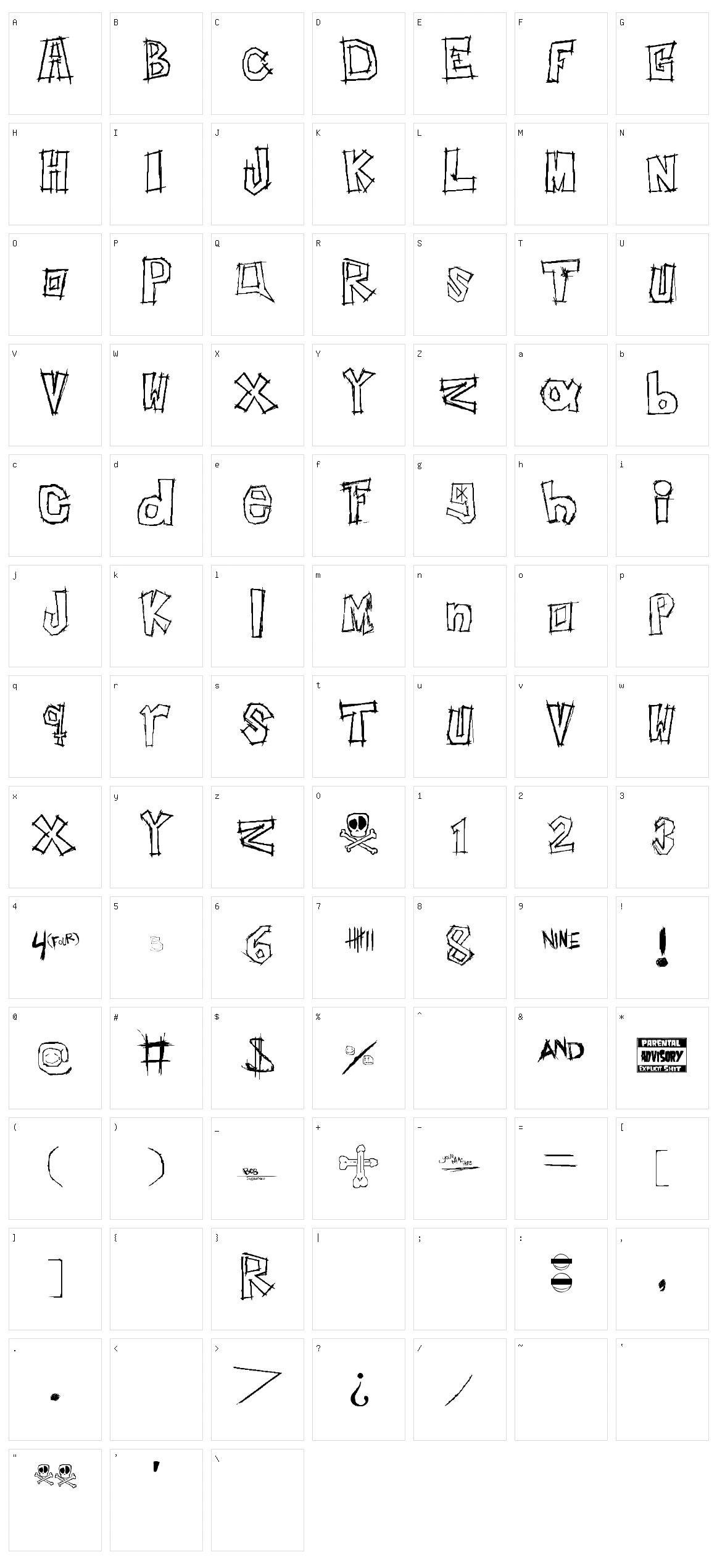
INSERT YOUR NAME HERE (UPDATED VERSION)
I now added better designed skulls and a couple of other things, so hope you'll think it's better than the first one, anyway once again i'm gonna' say this: don't take credit for this font, this font has cost several hours in front of a computer and several headaches, so don't go off and tell your friends that you made this font.